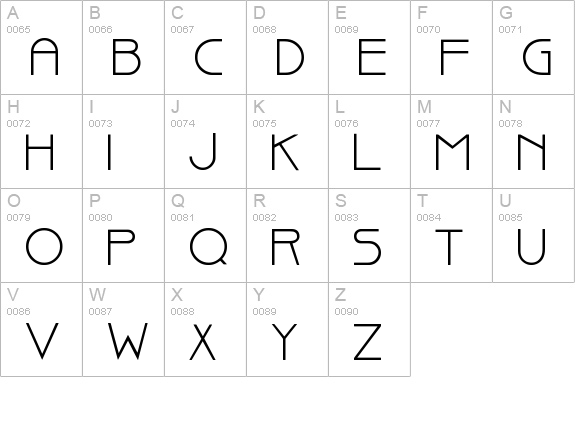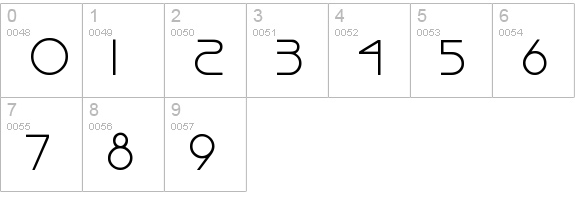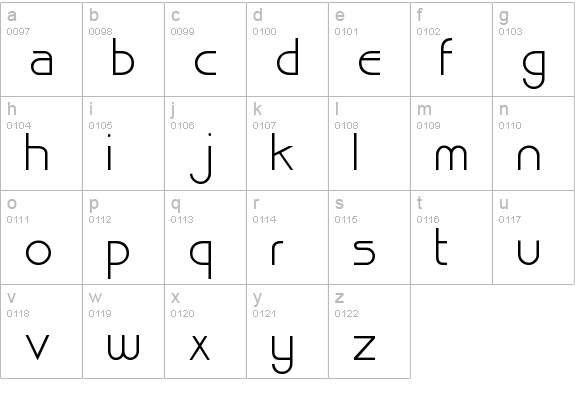
Pointer Font Details
Pointer font is a sleek and modern typeface that exudes elegance and sophistication. With its clean lines and contemporary style, this font is perfect for a wide range of design projects, from branding to editorial design. The sharp angles and precise curves of Pointer font give it a distinctive look that will make your text stand out. The best part? Pointer font is available for free download at FontsMarket.com. Whether you're a professional designer looking to add a new font to your collection or a hobbyist looking to spice up your projects, Pointer font is the perfect choice. Don't miss out on this opportunity to enhance your designs with this stylish and versatile typeface. Download Pointer font today and let your creativity soar!